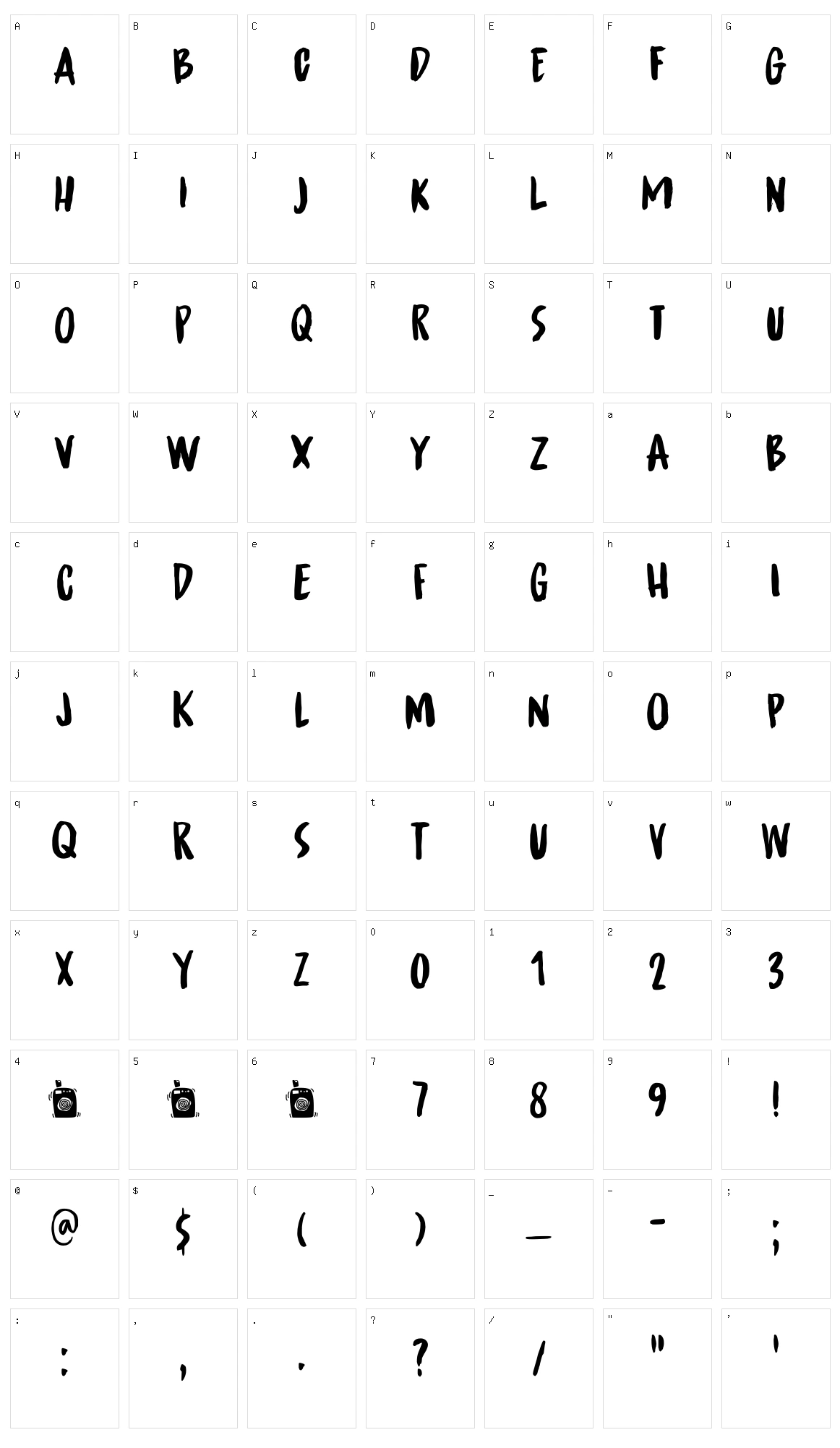
The free font Spinwash is carefully designed by Hanoded, showcasing a thoughtful balance of creativity and usability and falls under the Script font style. When you download the ZIP file, it contains only 124.4 KB of font files, making it lightweight and quick to download. Please review the license details below to understand permitted usage and distribution rights. If license information is not available, we recommend using this font for personal projects only or contacting the author directly for commercial usage permissions.